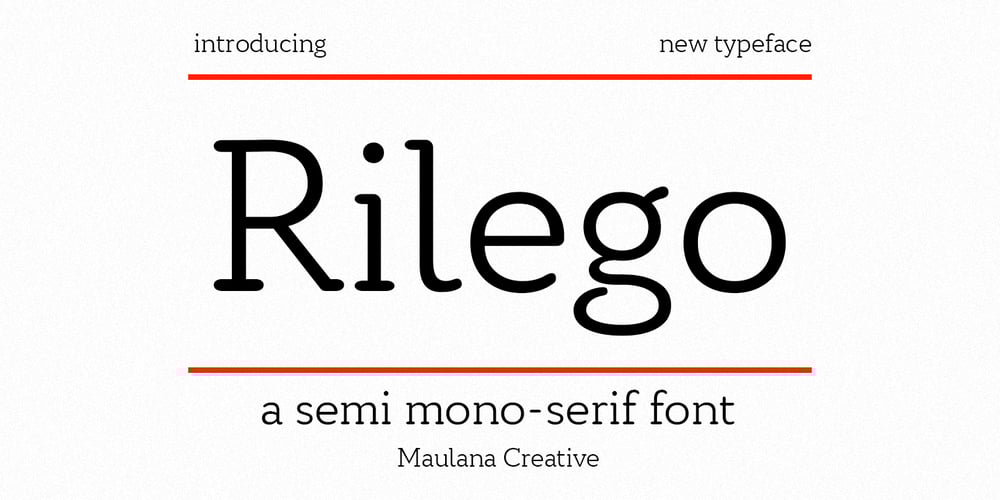
MC Rilego
MC Rilego font
MC Rilego Font Family was designed by Gilang Maulana and published by Maulana Creative. MC Rilego contains 1 styles and family package options. Rilego is a semi monospaced with serif font. Regular stroke, fun character with a bit of ligatures and alternates. To give you an extra creative work. Rilego font support multilingual more than 100+ language. This font is good for logo design, Social media, Movie Titles, Books Titles, a short text even a long text letter and good for your secondary text font with script or serif. Make a stunning work with Rilego font. Cheers, Maulana Creative